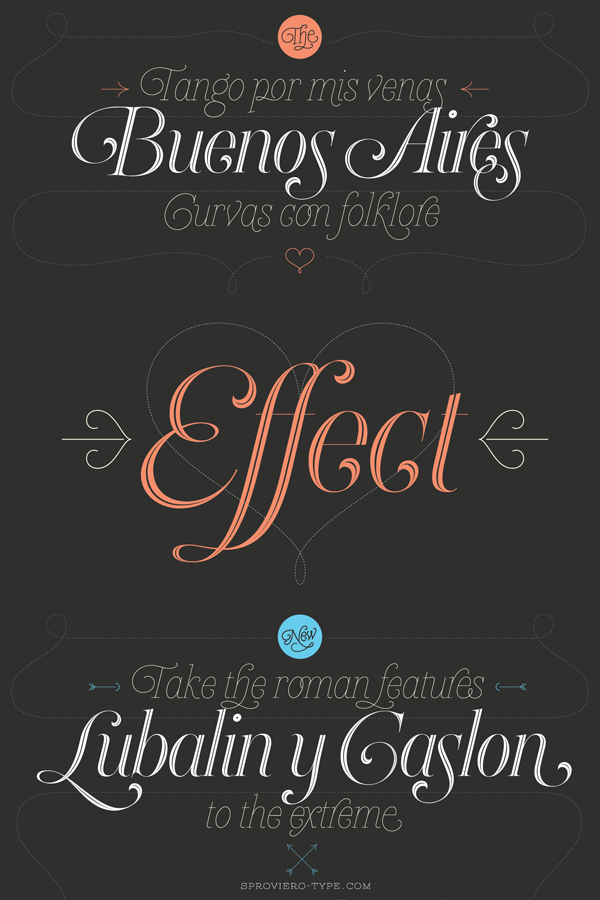
Heroe, an elegant and sensual font family.
Wow, this font is sexy! Buenos Aires, Argentina-based typeface designer Maximiliano Sproviero of foundry Lián Types created the Heroe font family. Heroe is the Spanish word for hero. It’s a clever mix of elegant and sensual shapes. The Heroe font family combines poetic curves and swashes as well as a friendly italic style with typical roman typeface aspects. Delicate hairlines, altered proportions for display purposes, and unique ball terminals offer a very classy style for a wide range of typographic possibilities. Heroe’s diverse styles work great for elegant packaging, fashion magazine headlines, and festive invitations.
In addition to the basic styles, Heroe also includes stylish Inline and Monoline versions as well as a range of elements including different arrows and catchwords. Heroe’s Pro styles include all decorative characters, while the Standard versions have only the basic set of glyphs. Maximiliano Sproviero designed Heroe Monoline Big and Heroe Monoline Small for better printing purposes. The Monoline Small version is well suited for use in small printing sizes.
Heroe is a beautiful display font family that conveys the vitality and elegance when you dance tango.